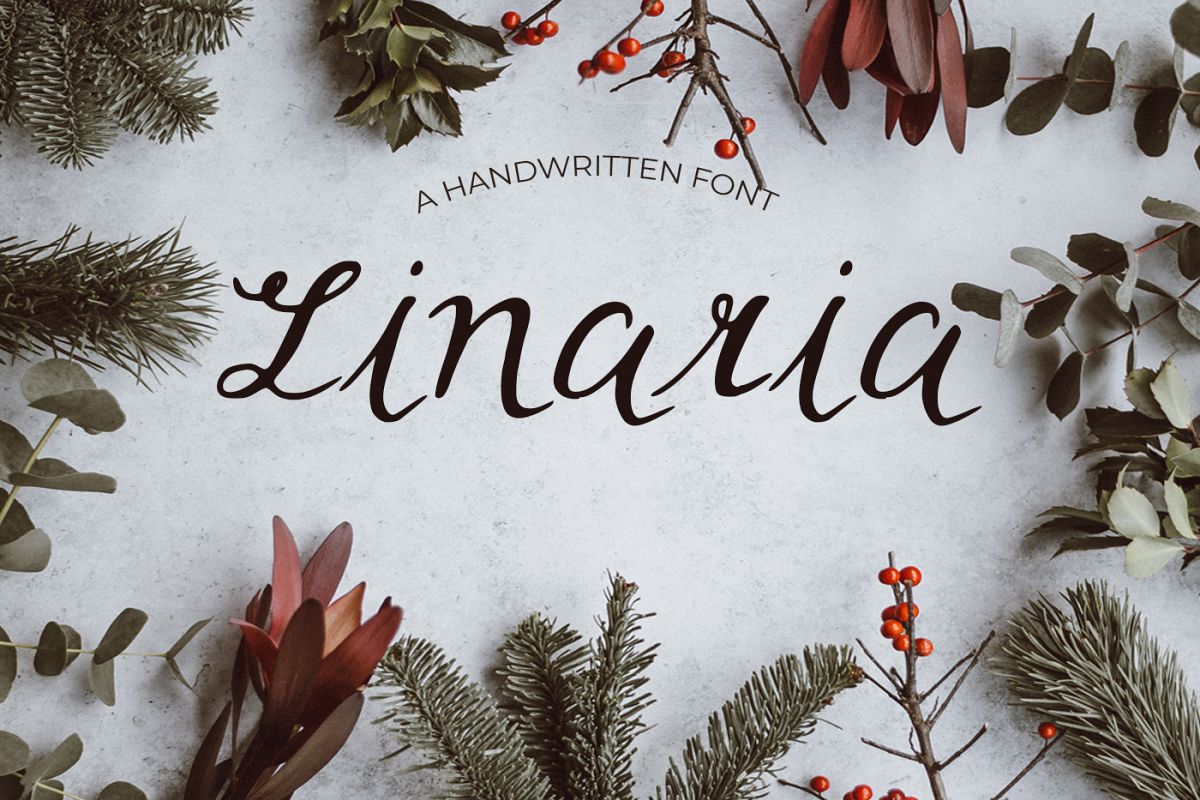
Linaria Font
Linaria Font it's a wonderful font with a unique, detailed and handmade look. These fonts looks amazing in all caps with a wide-set spacing if you want to try a classy look, or beautiful on its own in capital and lowercase letters for something completely timeless. Perfect for gorgeous logos, displays, headers, invitations, save the dates, weddings, titles, web layouts and branding, etc.
Linaria Font